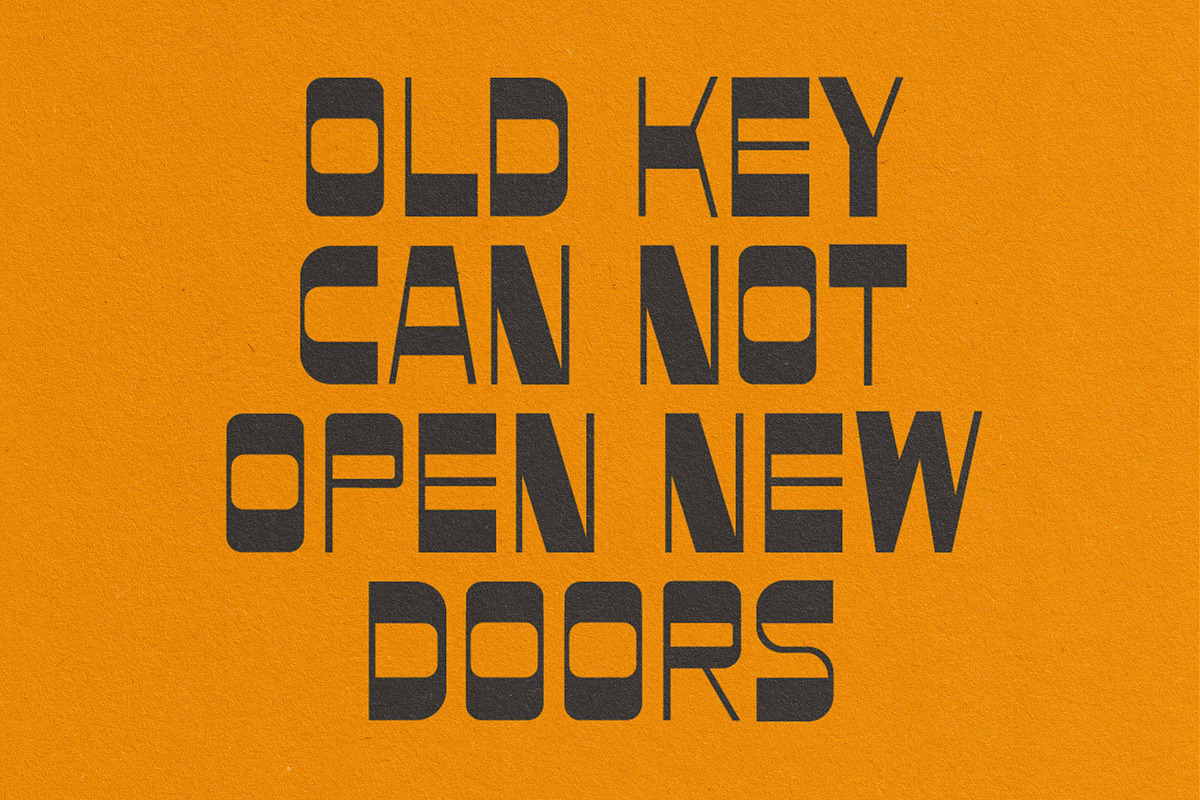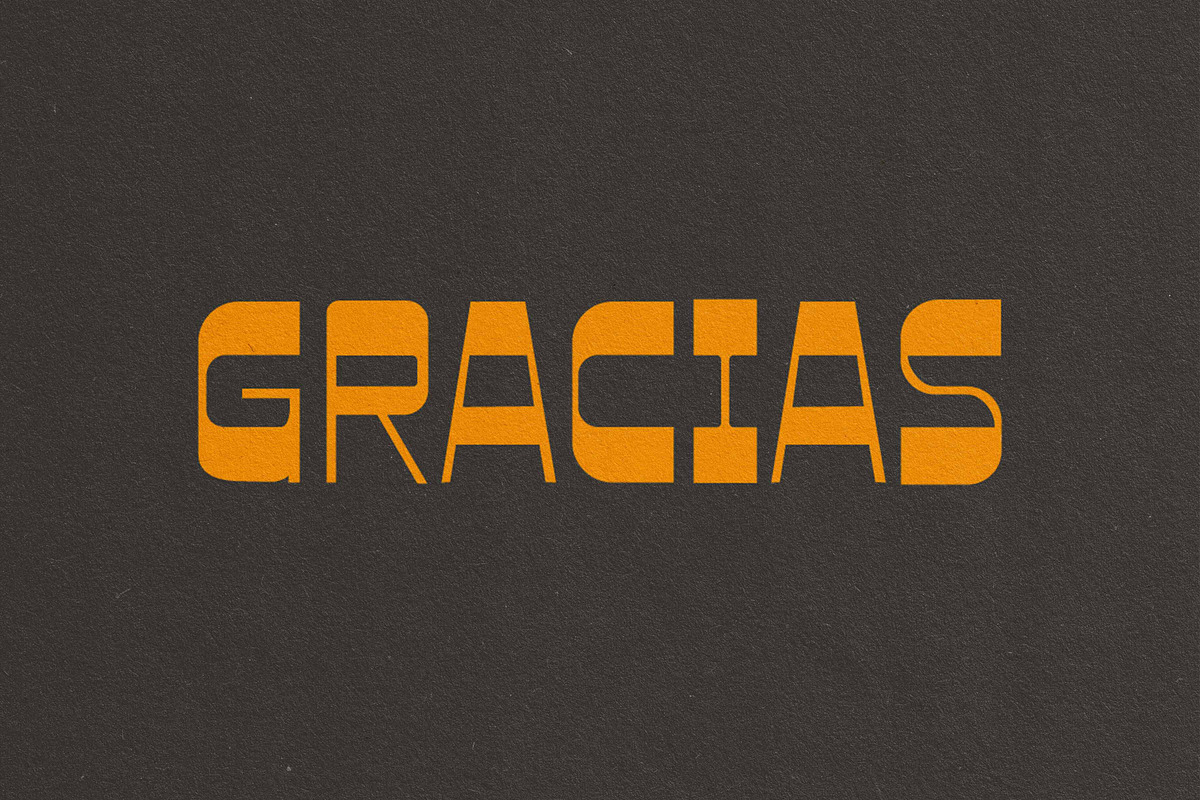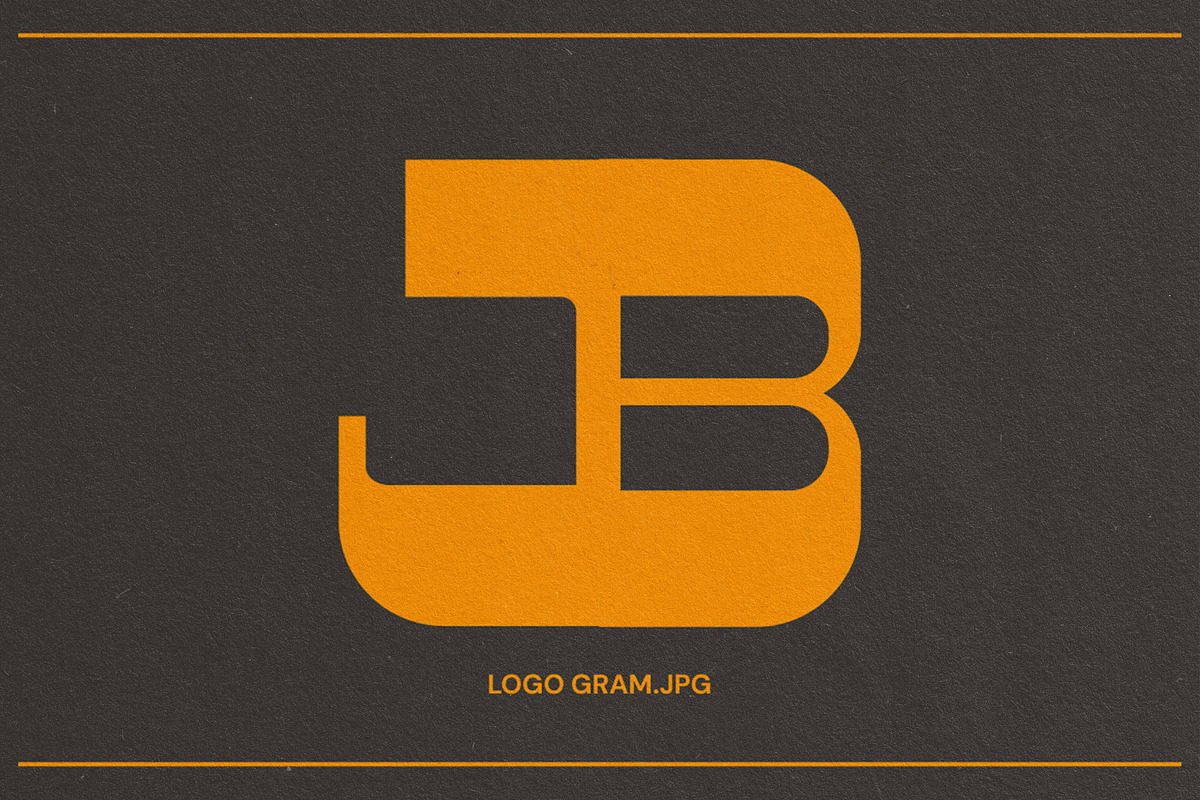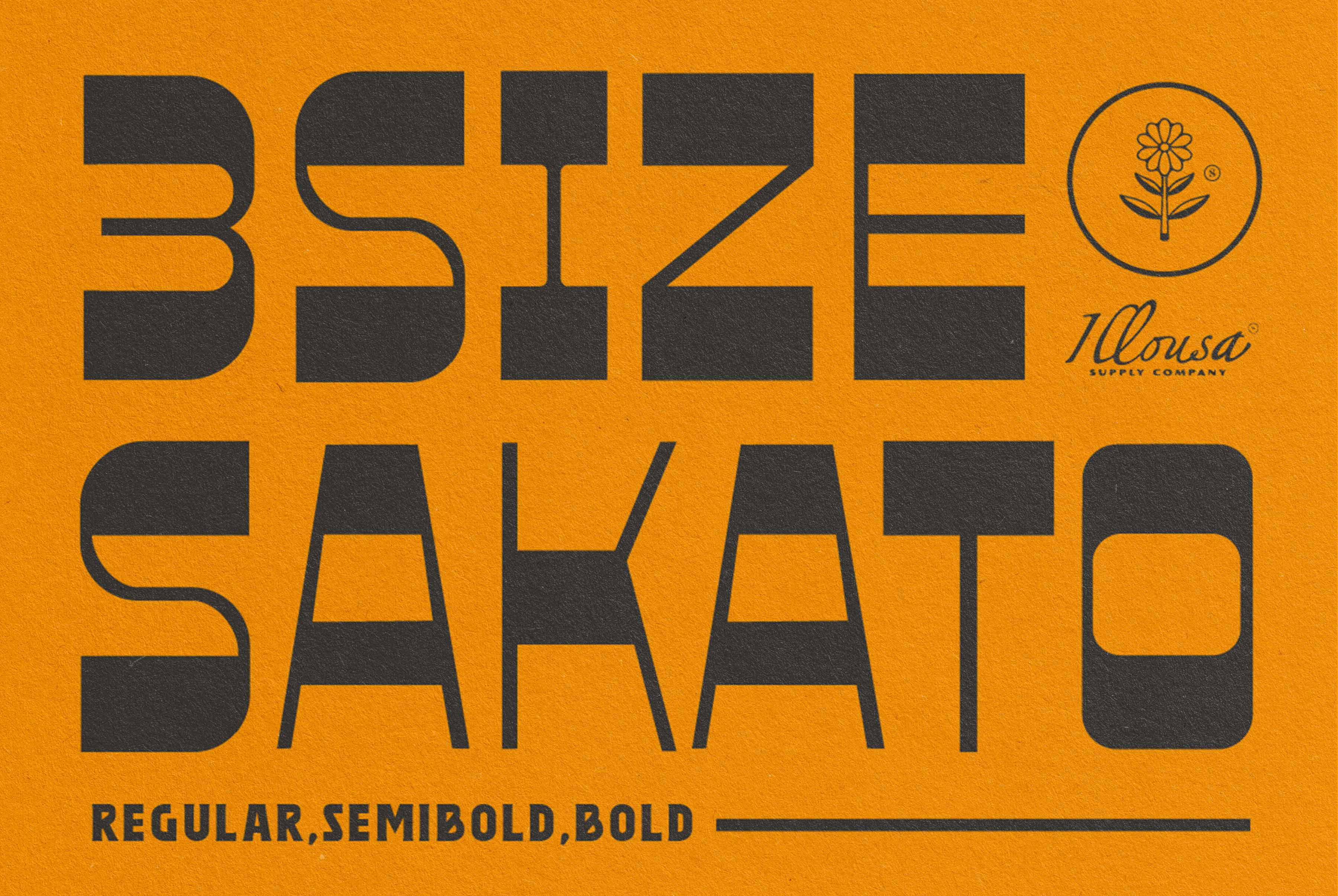
Sakato | Vintage Print Font
Sakato Vintage Print Typeface is a bold and expressive serif font inspired by classic print aesthetics and rugged character. Designed with textured and clean styles, it brings timeless vintage feel to headlines, posters, apparel and branding projects.
- Vintage print-inspired serif typeface
- Clean & textured font styles
- Strong display presence for headlines and titles
- Poster & headline typography
- Apparel & merchandise design
- Retro branding & packaging
- Logos and creative displays
- Editorial and promotional layouts